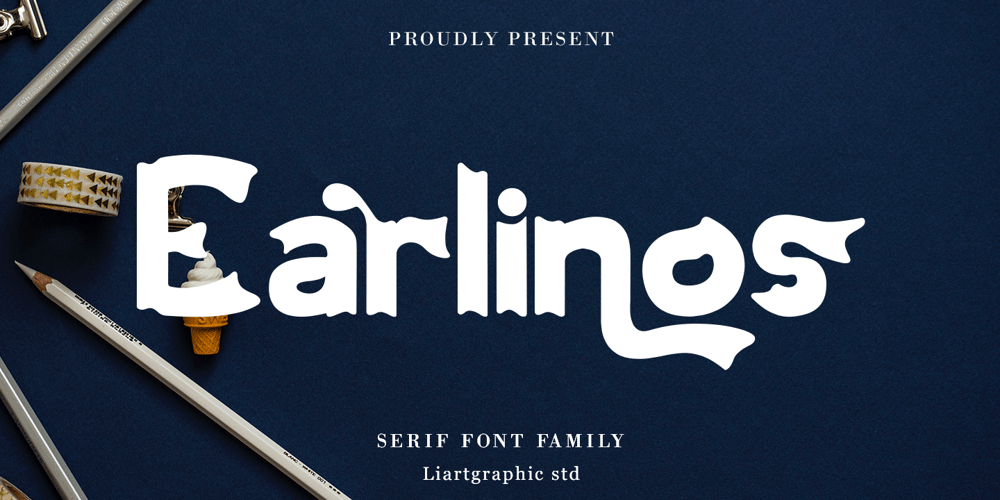
Earlinos
Earlinos font
Earlinos Font Family was designed by Ali Sifak Muftari and published by Liartgraphic. Earlinos contains 1 styles and family package options. Earlinos is designed with thick style but still looks elegant, and works well for logos, headers, landing pages, packaging and more. Earlinos also comes with multiple language support, ligature and alternate, making it very complete.